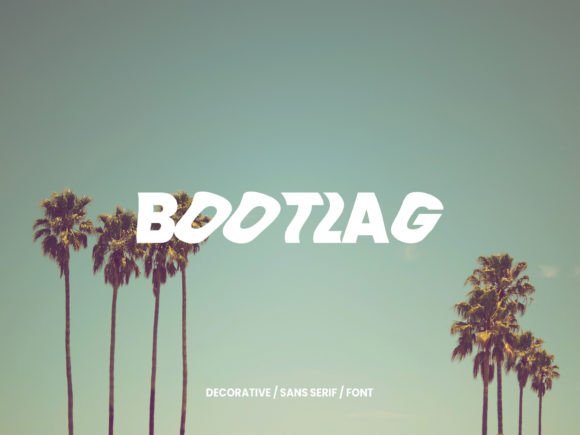
Discover the World of Bootlag: A Font that Embraces Boldness and Distinction
In a world saturated with mundane and conventional fonts, Bootlag emerges as a breath of fresh air, captivating the hearts of designers and typography enthusiasts alike. This decorative font, crafted with meticulous attention to detail, is the brainchild of artnivora.std, a visionary artist who saw the need for a font that transcended the ordinary.
Bootlag is not just a font; it's a statement. Its bold, confident strokes command attention, while its modern aesthetic exudes sophistication. It's the perfect font for those who dare to stand out, for those who embrace individuality and seek to make a lasting impression.
With Bootlag, you'll have the power to transform your projects into captivating creations. Whether you're designing a logo, crafting a poster, or simply adding a touch of personality to your text, Bootlag will elevate your work to new heights.
But Bootlag is more than just a pretty face. It is incredibly versatile, lending itself seamlessly to a wide range of applications. Its strength lies in its ability to command attention in headlines and titles, yet its readability remains impeccable, even in smaller sizes.
Moreover, Bootlag is the perfect font for creating paragraph text that captivates and engages. Its distinctive characters dance across the page, inviting readers on a journey of visual exploration. With Bootlag, your text will come alive, leaving a lasting impression on the minds of your audience.
The Best Font for Paragraph Text
Bootlag excels in creating paragraph text that captivates and engages. Its distinctive characters dance across the page, inviting readers on a journey of visual exploration. With Bootlag, your text will come alive, leaving a lasting impression on the minds of your audience.